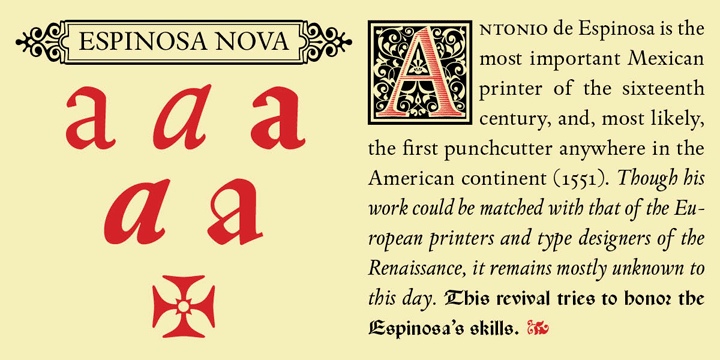
Espinosa Nova Font
Espinosa Nova Font is perfect for academic publishing, scholarly articles, book design, literary magazines, historical documentation, educational materials, research publications, cultural institutions, traditional branding, and sophisticated editorial design. This distinguished typeface excels in both digital and print applications requiring scholarly authority.
Espinosa Nova Font is exciting because it combines historical typography tradition with contemporary functionality, offering refined letterforms that convey scholarly authority and intellectual credibility while maintaining exceptional readability for extended text. Its academic character creates trustworthy communications that resonate with educated audiences seeking knowledge and expertise.
The Espinosa Nova Font family includes regular, bold, light, italic, condensed, extended, and display variants, providing designers with comprehensive typographic options for various design scenarios and scholarly communication hierarchies.
Espinosa Nova Font represents the evolution of classical typography for modern scholarly communication, combining centuries-old design principles with contemporary technical requirements to create letterforms that embody intellectual authority and academic excellence. This distinguished typeface reflects the heritage of scholarly publishing while incorporating modern refinements that ensure optimal performance across digital and print platforms. The font's academic character makes it particularly valuable for universities, research institutions, publishing houses, and cultural organizations that require typography capable of conveying scholarly gravitas, intellectual credibility, and educational authority.
The scholarly construction of Espinosa Nova Font demonstrates meticulous attention to traditional letterform principles, with carefully balanced proportions and refined details that enhance reading comfort during extended academic study and research consumption. This classical foundation ensures superior performance in demanding scholarly environments, from complex research publications to detailed academic documentation where clarity and authority are paramount. The font's dignified presence creates academic communications that inspire confidence while maintaining the readability essential for knowledge transfer and intellectual discourse.
Whether developing academic publications, creating scholarly communications, or building educational brands, Espinosa Nova Font provides the intellectual authority needed for communications that establish expertise while maintaining professional standards and achieving lasting credibility across all academic and educational platforms requiring scholarly distinction.